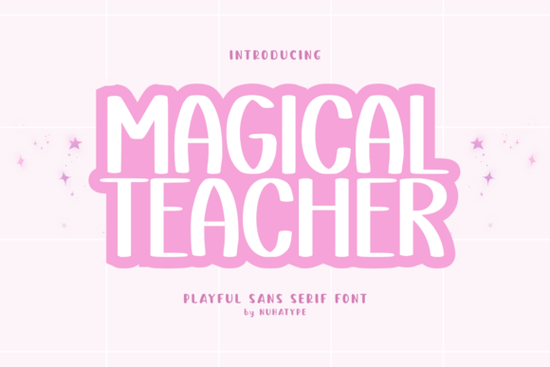
If you're creating printables, worksheets, or whimsical designs for kids, the Magical Teacher Font offers a sweet spot between playful charm and classroom-ready clarity. Designed with soft curves, gentle bounces, and open letterforms, it’s easy for young readers to recognize while still feeling imaginative and handcrafted. Whether you’re a teacher preparing learning materials, a small business owner designing party invites, or a crafter making custom stationery, this font brings warmth without sacrificing legibility.
What makes this font work well for educational and whimsical projects?
Unlike overly decorative scripts that can confuse early readers, the Magical Teacher typeface keeps its shapes simple and familiar think rounded terminals, consistent stroke widths, and generous spacing. At the same time, its subtle bounce along the baseline adds personality, making it feel less rigid than standard sans-serifs like those found in Zesty Spirit, which leans more toward bold, modern energy.
This balance is especially useful if you’re designing:
- Alphabet tracing sheets or phonics flashcards
- Children’s book covers or chapter titles
- School event posters (think “Spring Fling” or “Read Across Campus”)
- Fairy-tale-themed birthday invitations or favor tags
- Custom nursery prints or growth charts
Because it’s highly legible even at smaller sizes, it holds up well in both digital and printed formats ideal for teachers printing dozens of copies or Etsy sellers offering downloadable PDFs.
How can you style it for different moods?
While the base font already feels friendly and inviting, you can easily adapt its tone depending on your project. For example:
- Pastel gradients soften it further for baby showers or gentle storybook vibes.
- Glitter or foil textures (applied in design software) lean into the “magical” aspect perfect for unicorn parties or enchanted forest themes.
- Black or deep navy ink on kraft paper gives it a rustic, hand-lettered look great for classroom labels or craft kits.
And because it’s a single-style font (not part of a large family with multiple weights), it works best as a display or headline typeface. Pair it with a clean, neutral sans-serif like one you might find in this collection of complementary fonts for body text or instructions to keep your layout balanced.
Who should consider using this font?
The Magical Teacher Font shines for creators who need something approachable but not childish, stylish but not distracting. That includes:
- Teachers and homeschool parents making engaging, visually supportive learning aids.
- Print-on-demand sellers designing themed wall art, greeting cards, or planner stickers for kids and families.
- Small event planners crafting cohesive branding for school carnivals, literacy nights, or fantasy-themed birthdays.
- Digital product designers building Canva templates or editable worksheets for educators.
It’s also worth noting that because of its clear forms, it aligns well with early literacy best practices avoiding ambiguous characters (like a looped “l” that looks like an uppercase “I”) that can trip up new readers.
- ✅ Confirm your use case best for headlines, titles, and short phrases, not long paragraphs.
- ✅ Test readability at your intended size (especially under 12pt).
- ✅ Pair it with a simple, neutral font for supporting text to maintain hierarchy.
- ✅ Consider adding texture or color in post-production to match your project’s mood don’t rely on the font alone to carry the theme.
With thoughtful application, the Magical Teacher Font can add just the right amount of wonder to projects that need to feel both functional and full of heart.